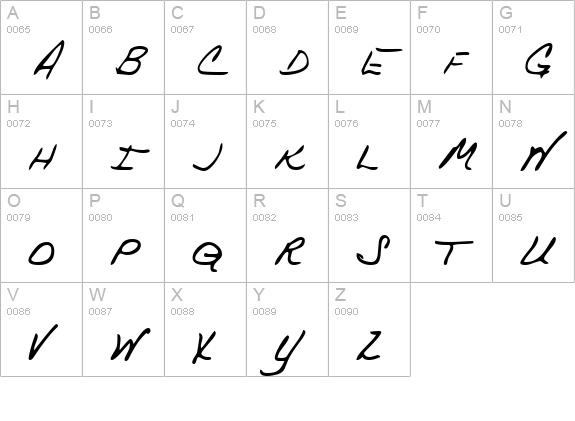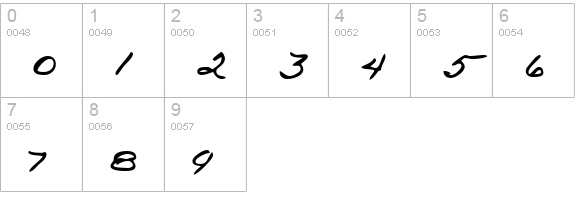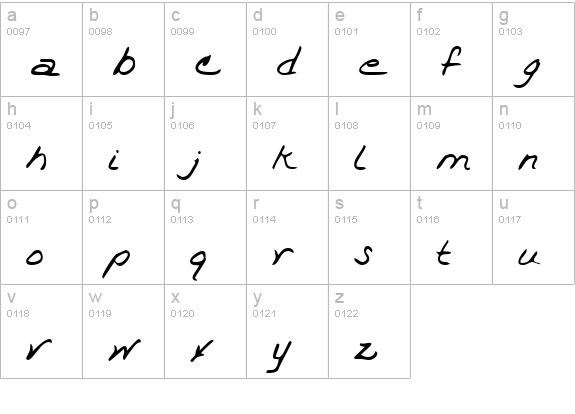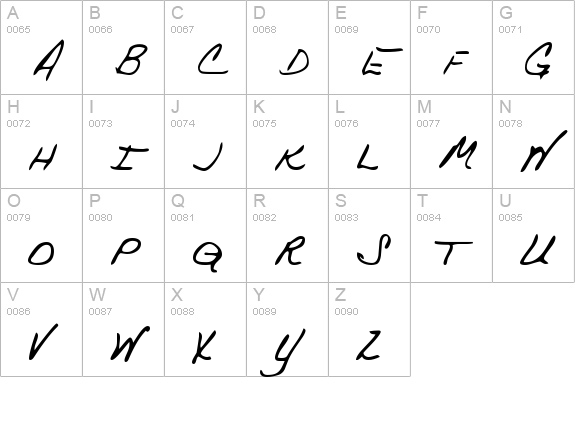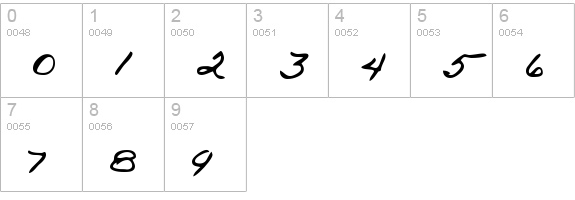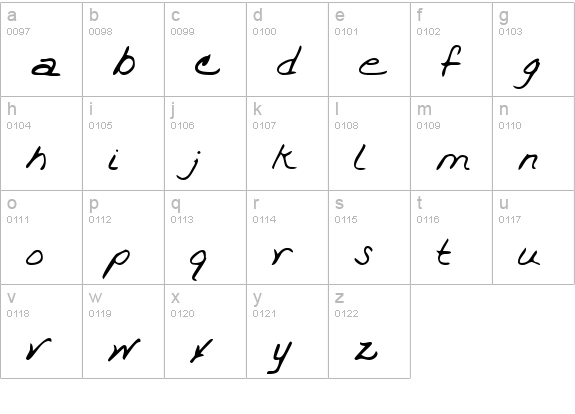
TrixiesHand Regular Font Details
TrixiesHand Regular is the standard, neutral variant in the TrixiesHand typeface family \xE2\x80\x94 well suited to general body text, paragraphs, and standard typographic work.
TrixiesHand Regular font is a delightful and charming typeface that captures the essence of handwritten script. With its elegant curves and flowing strokes, this font exudes a sense of warmth and friendliness that is perfect for a wide range of creative projects. This font is designed with meticulous attention to detail, ensuring that each letter is beautifully crafted and easily legible. The gentle slant and organic forms give TrixiesHand Regular font a unique and playful character, making it a versatile choice for everything from invitations and greeting cards to logos and branding materials. One of the most appealing aspects of TrixiesHand Regular font is that it is freely available to download at FontsMarket.com. This means that you can easily access this stunning typeface without any cost, making it an accessible option for both personal and commercial use. Whether you are a designer looking to add a touch of whimsy to your designs or someone seeking a font that exudes a friendly and approachable vibe, TrixiesHand Regular font is the perfect choice. With its free availability and exceptional design, this font is sure to bring a touch of elegance and joy to any project.